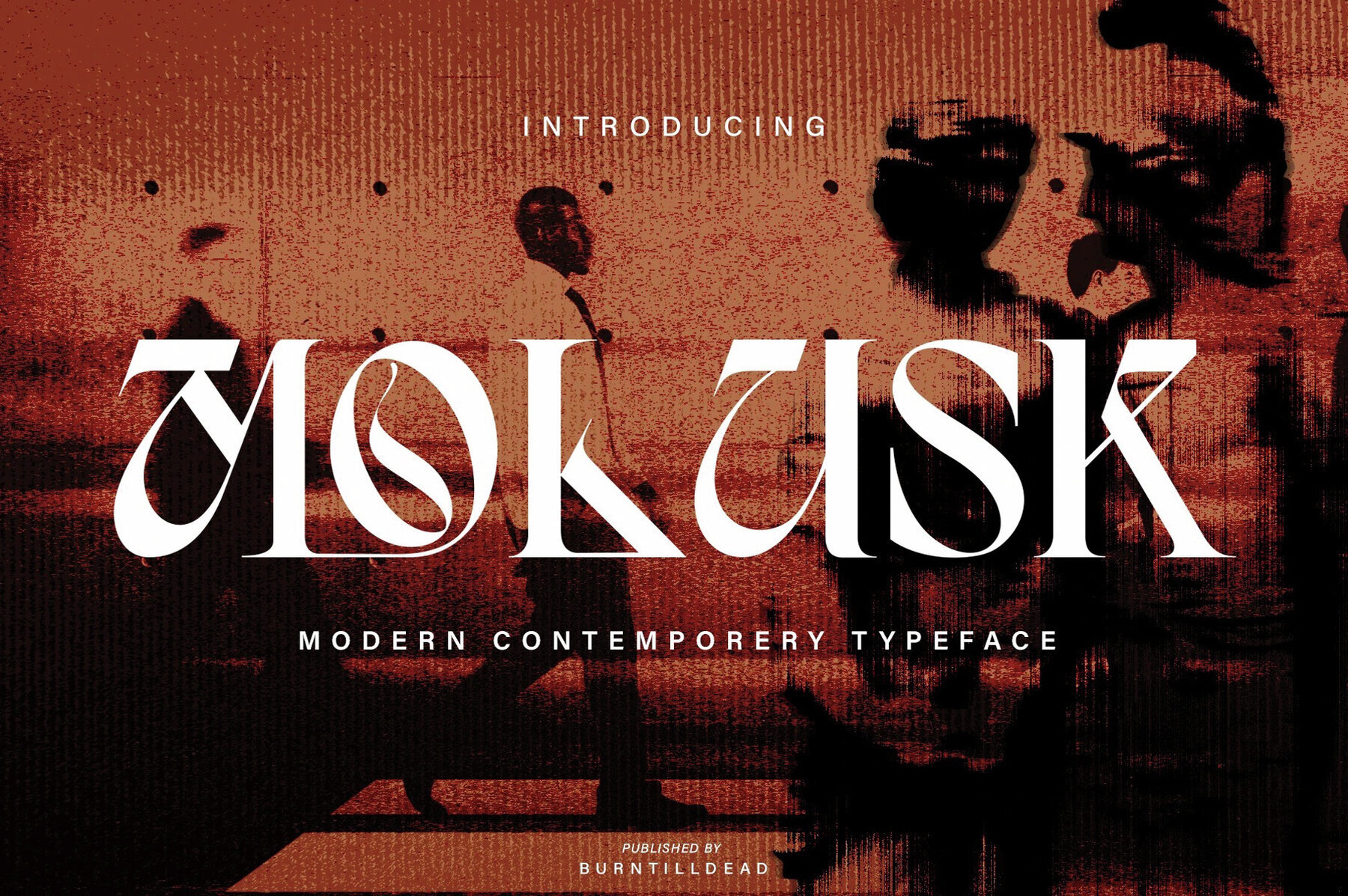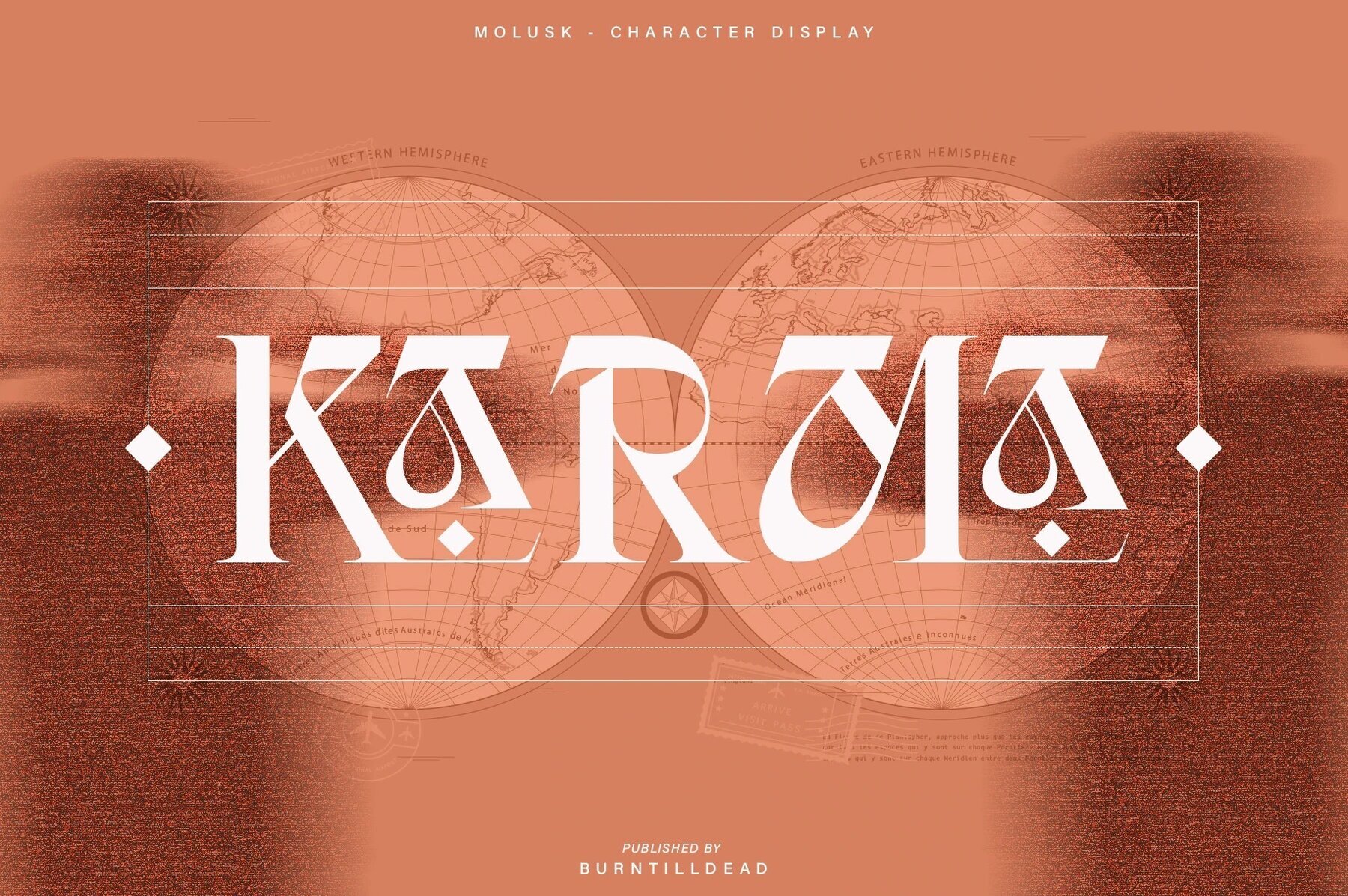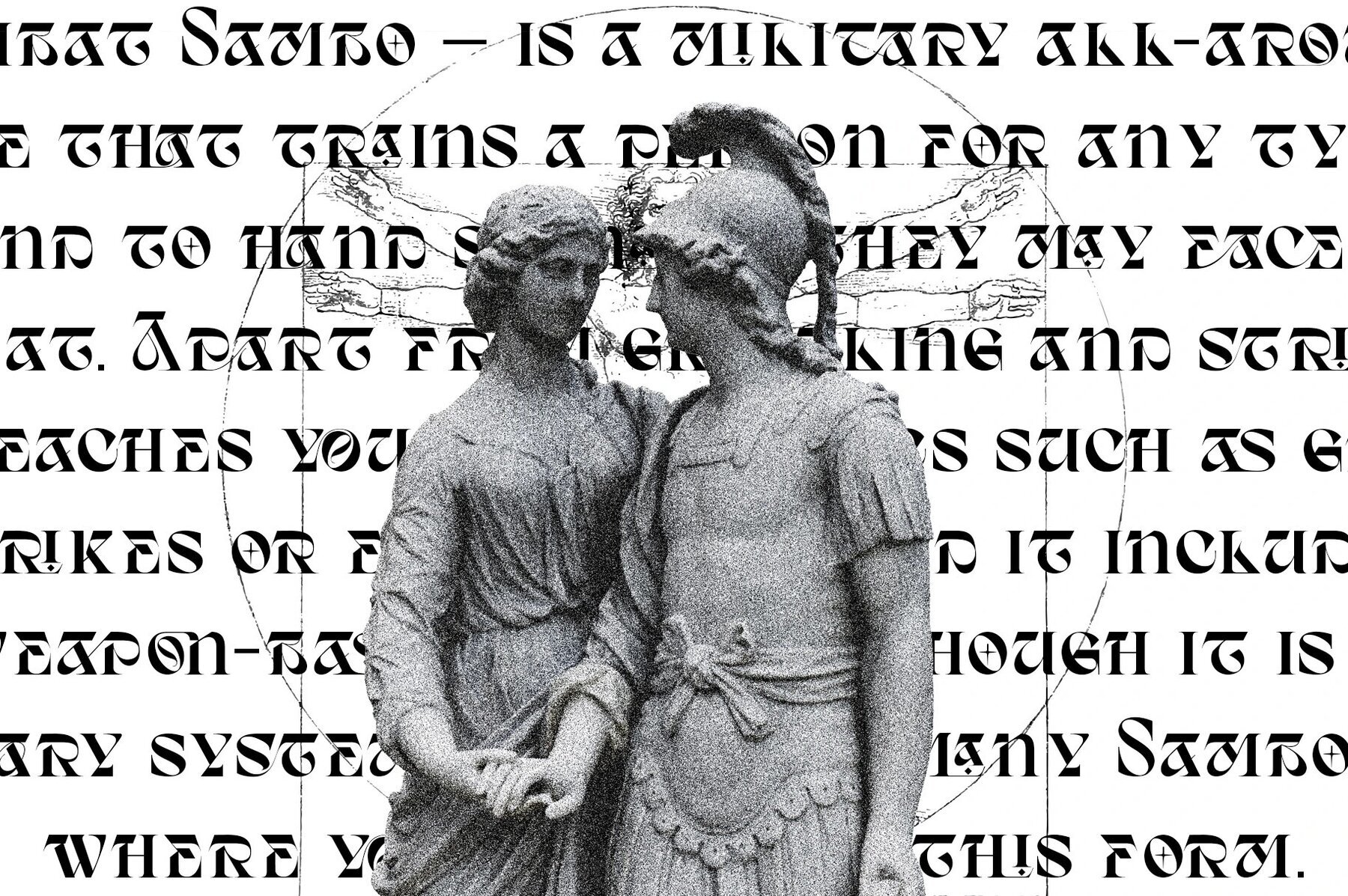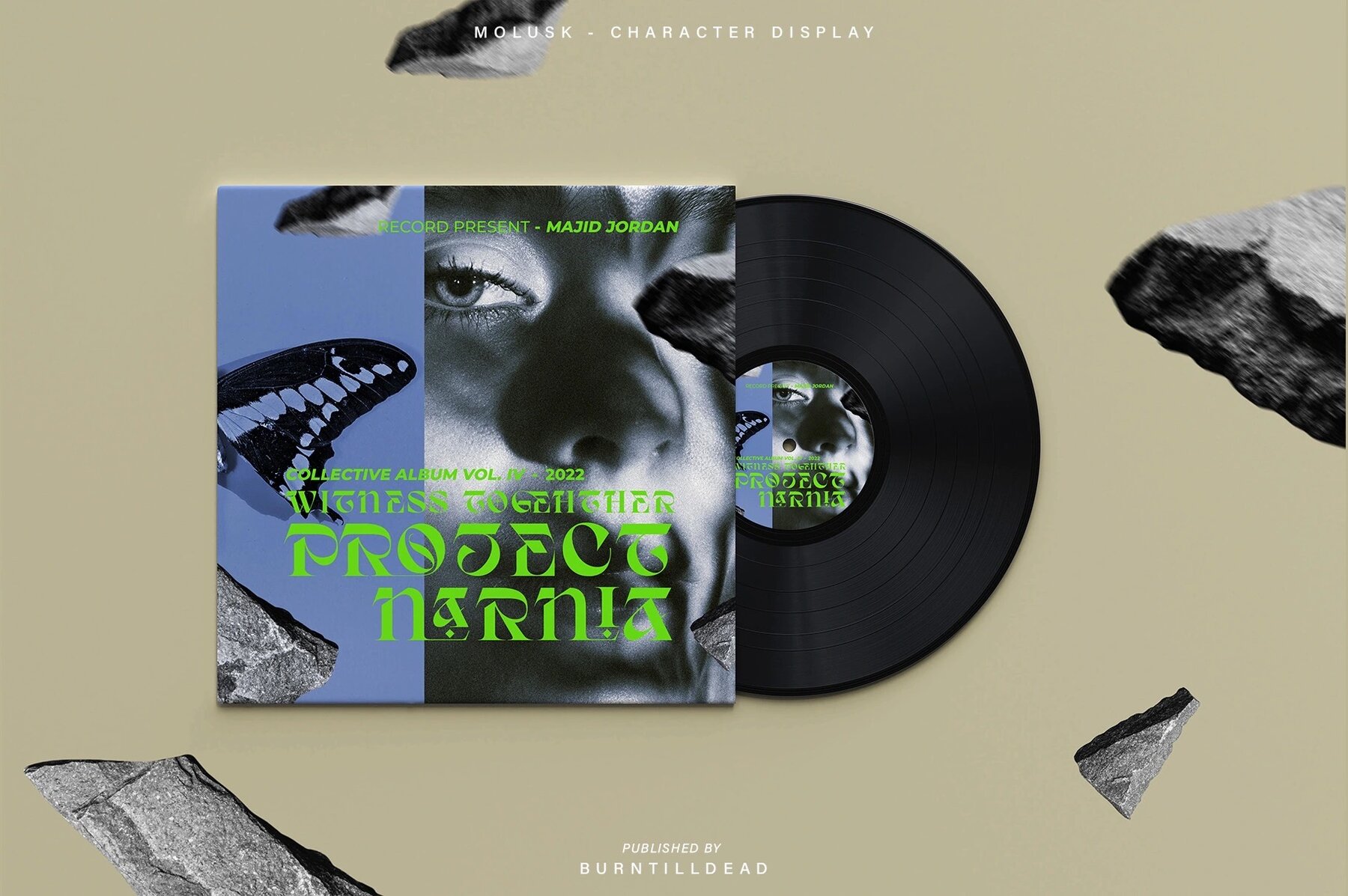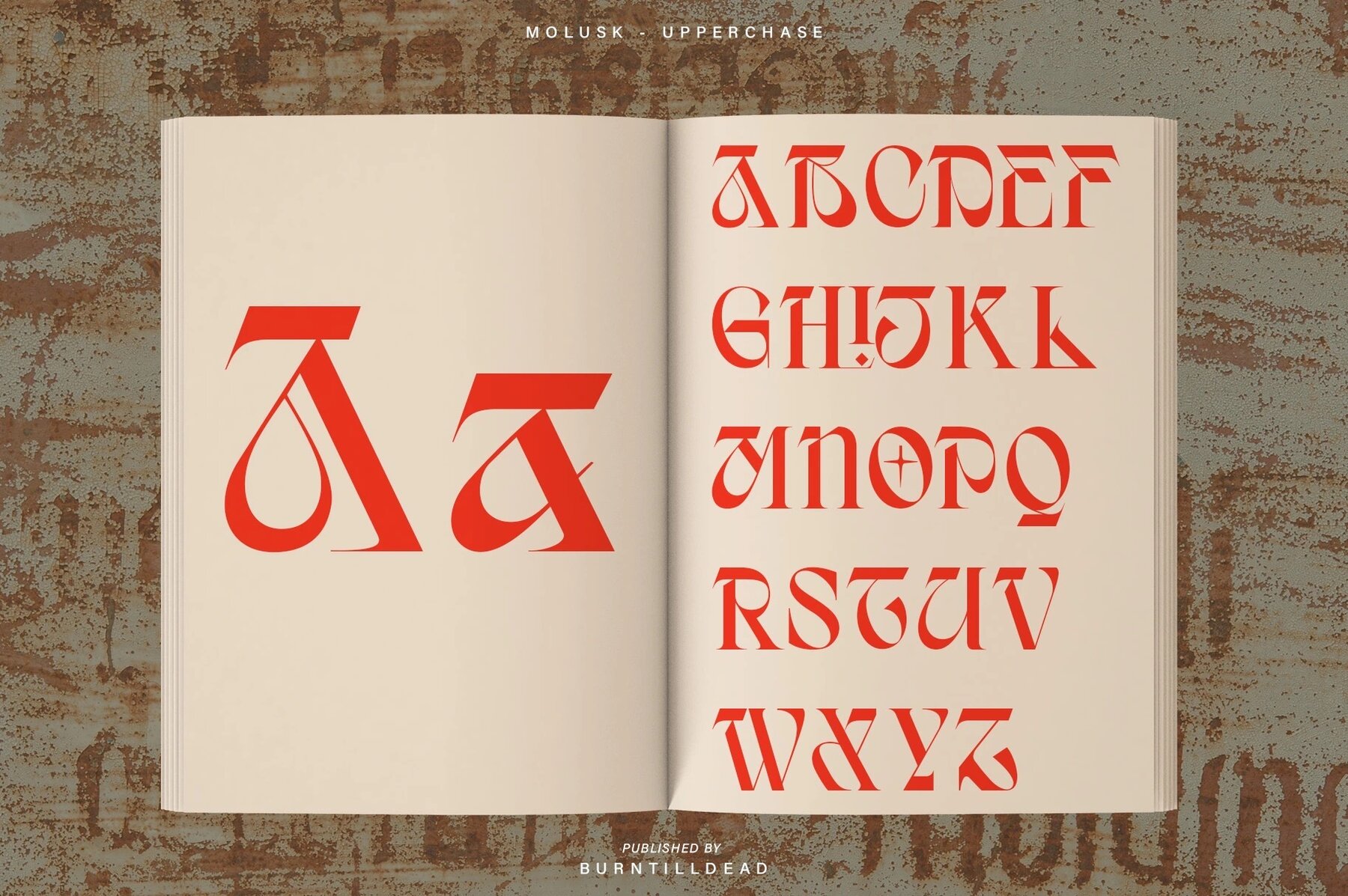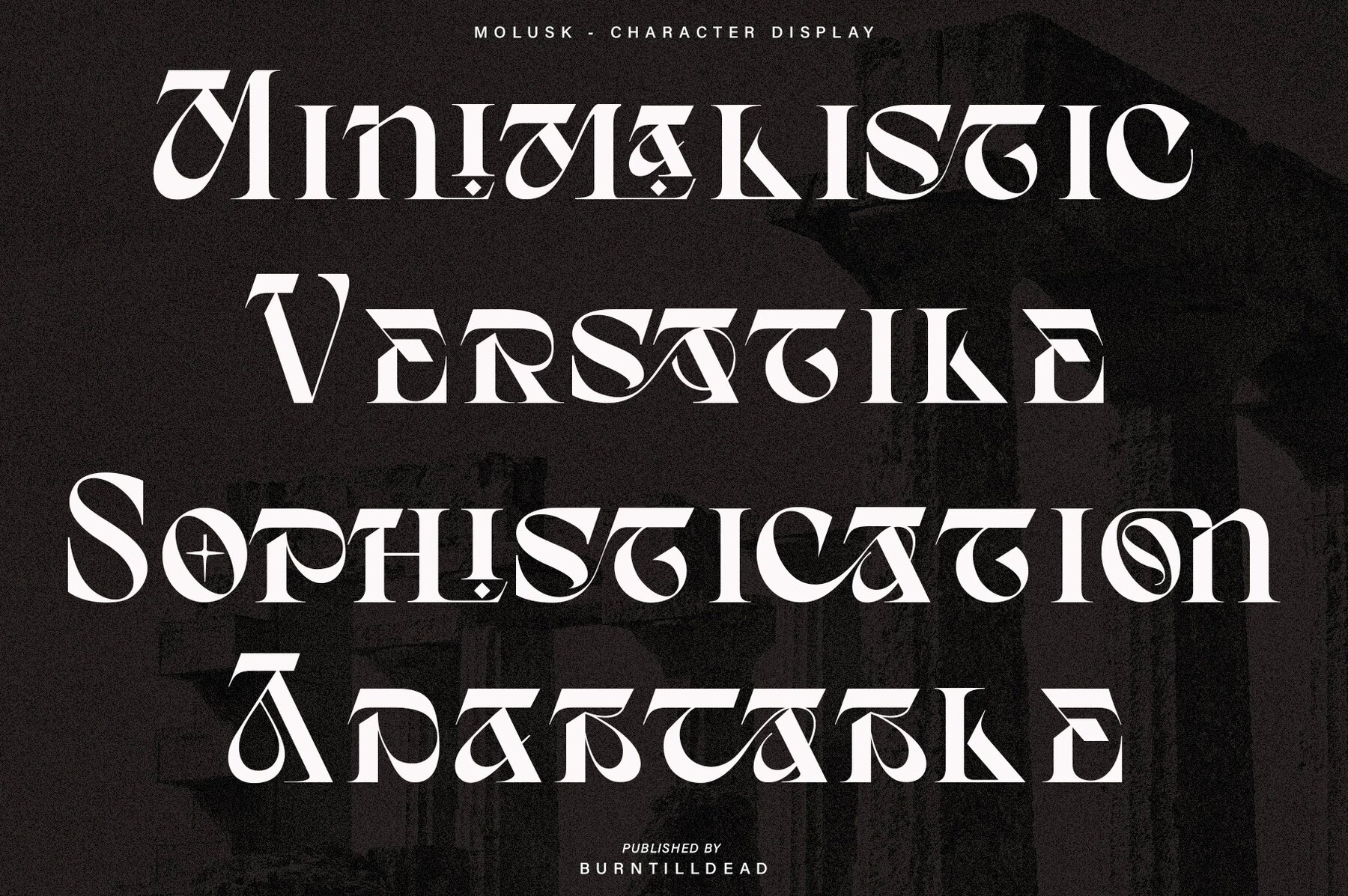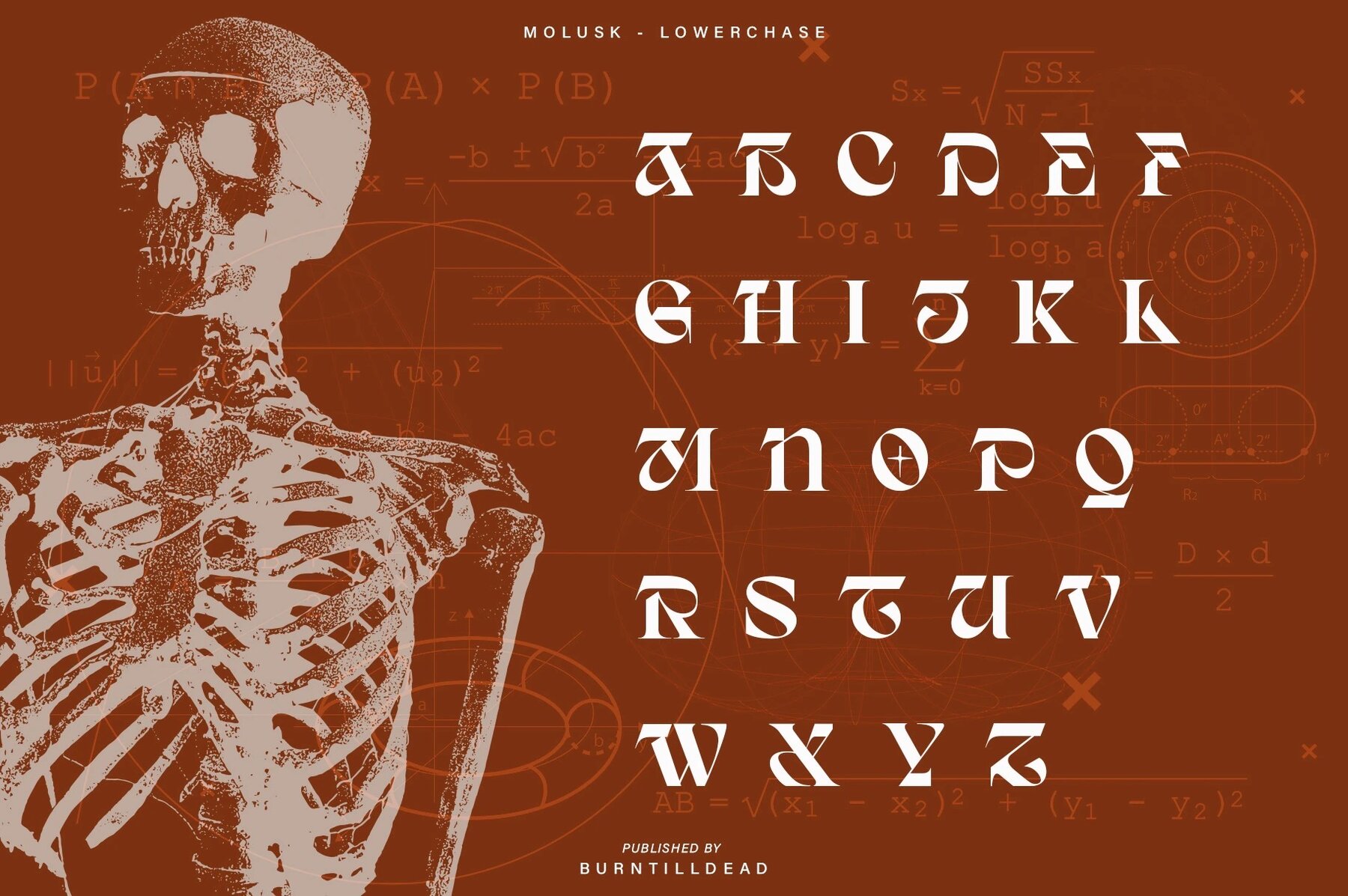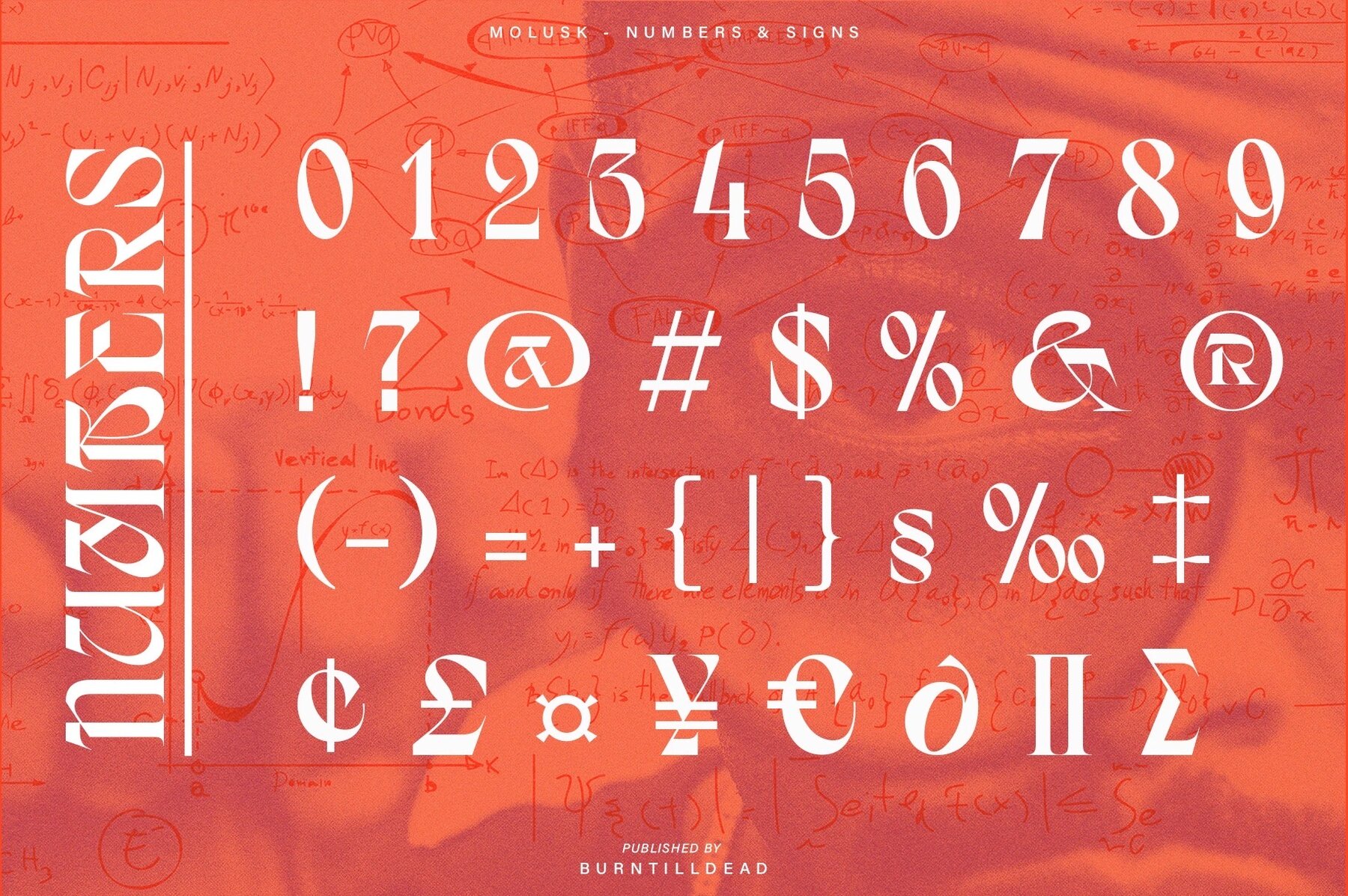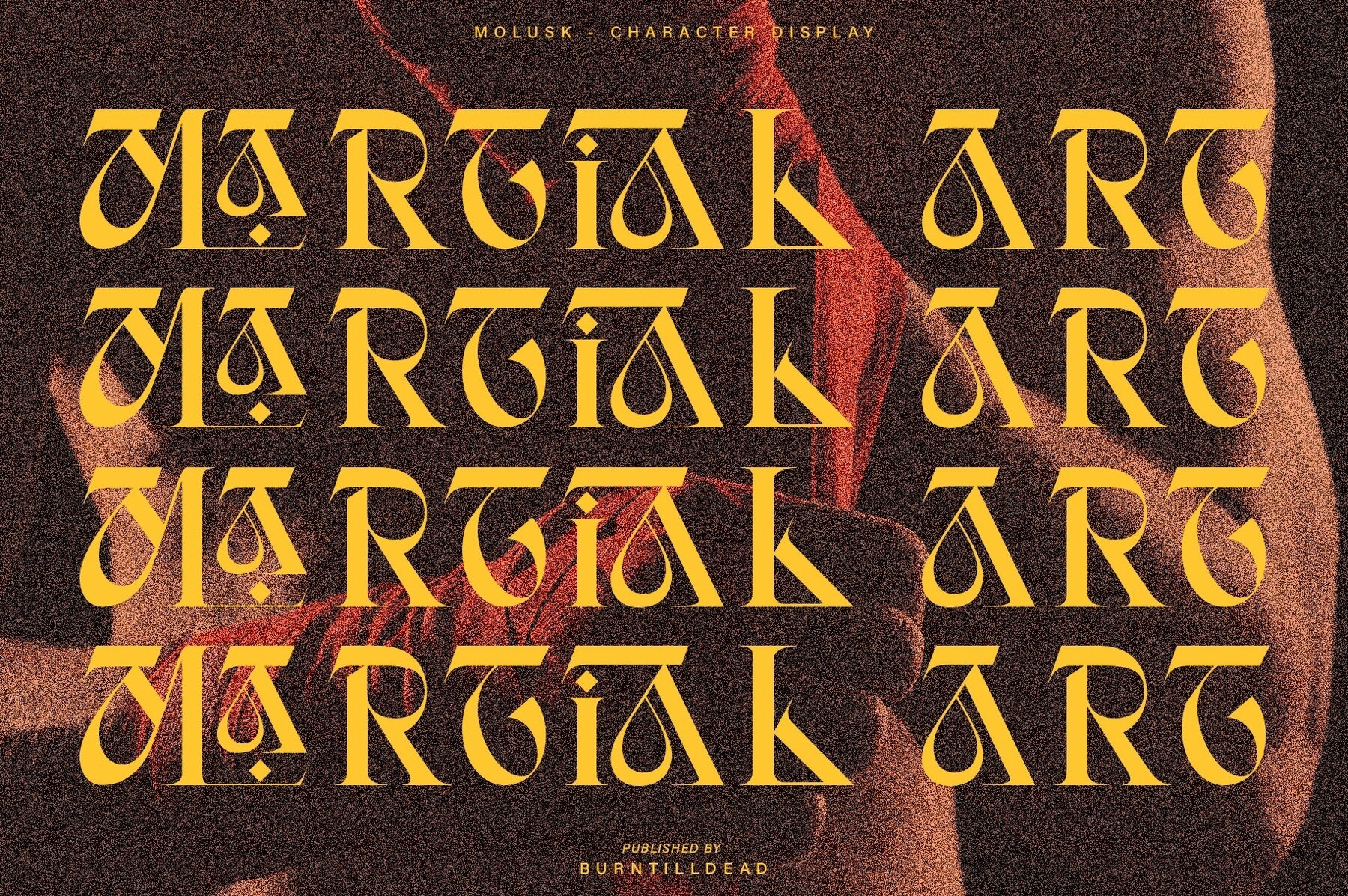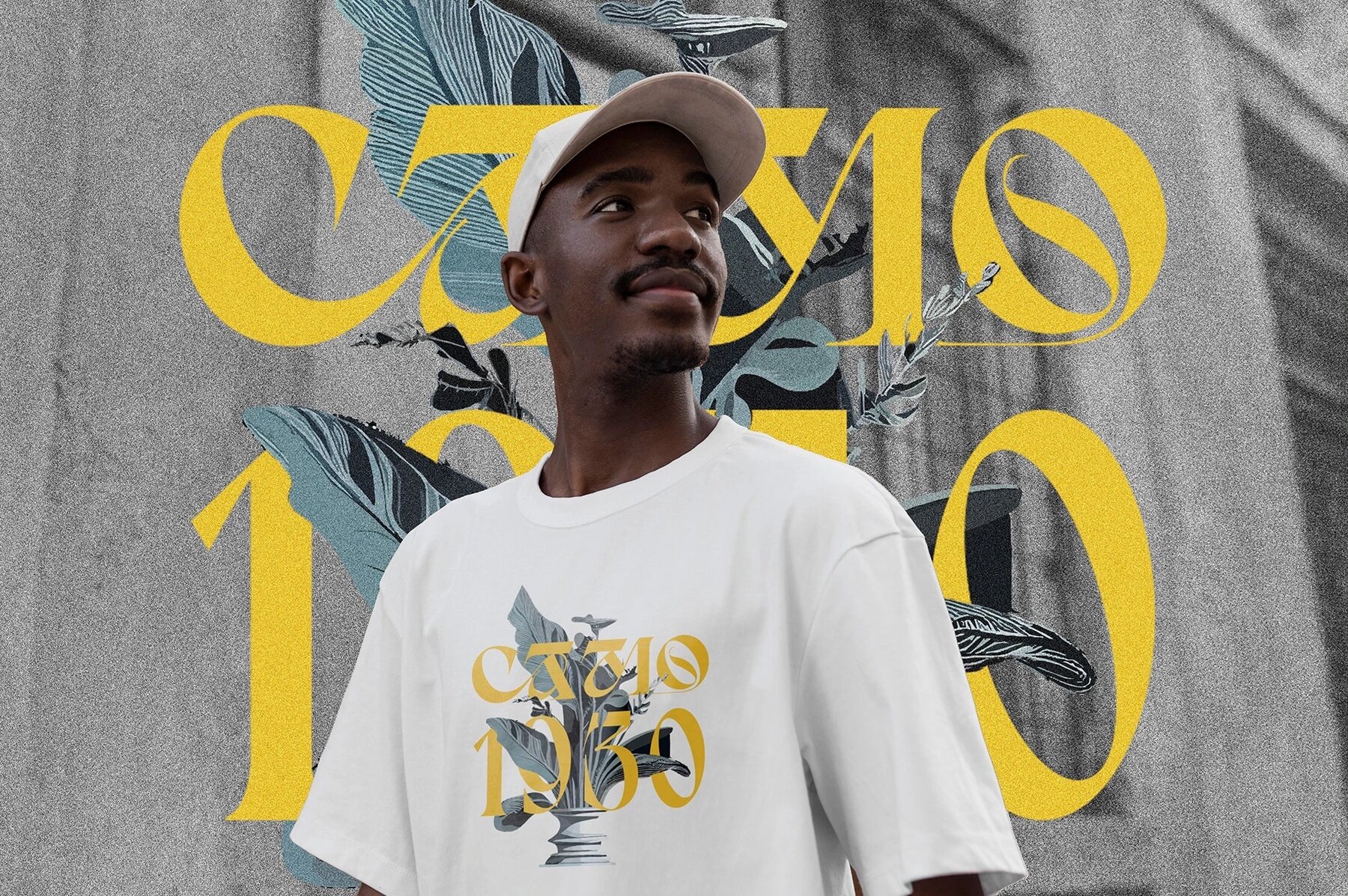
Molusk Font
Molusk Regular
Introducing Molusk, a modern contemporary typeface. It came from experimental display typeface. A solid expressive character, reflects the current trends and aesthetics of design. Molusk is a great choice for your Edgy projects. It will work well on posters, covers, titles and logotypes.